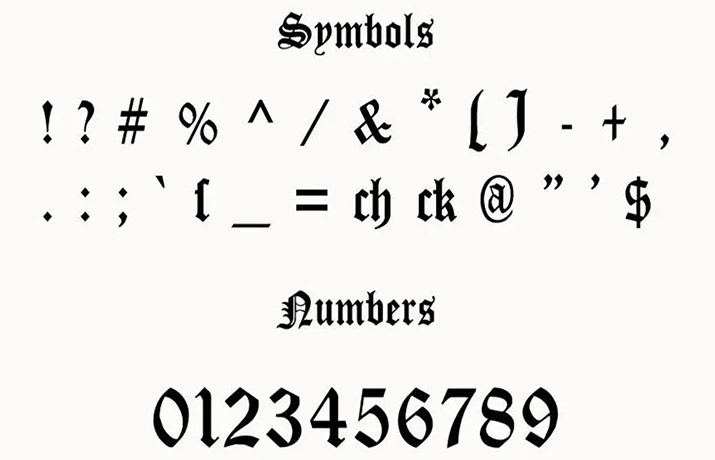
Chrome Hearts Font is a logo typeface basically, Chrome Hearts is a luxury brand from Hollywood, founded in 1988 by Richard Stark, Leonard Kamhout, and John Bowman.
The brand produces silver, gold, and diamond accessories as well as eyewear, clothing, and furniture. They are known for using leather, silver, and ebony.
“The font used for the logo is very similar to Cloister Black. It was designed by Dieter Steffmann. This is an elegant black letter typeface.”
This font family comes in a single weight along with True Type file formats. It includes 241 glyphs, uppercase & lowercase letters, symbols, numbers, and punctuation marks. Moreover, it also supports 68 global languages.
| Style: | Gothic, Display, Medieval |
| Font Designer: | Dieter Steffmann |
- It’s ideal for T-shirt designs with motorcycle themes, product designs, cards for special occasions, product packaging, social media banners, decorative elements, signs, flyers, brochures, banners, ads, headers, custom tattoo lettering, sports logos, branding, logo designs, or perhaps a poster with a gothic feel.
What is Chrome Hearts Font?
Chrome Hearts Font is a logo typeface basically, Chrome Hearts is a luxury brand from Hollywood, founded in 1988 by Richard Stark, Leonard Kamhout, and John Bowman.
The font used for the logo is very similar to Cloister Black. It was designed by Dieter Steffmann.